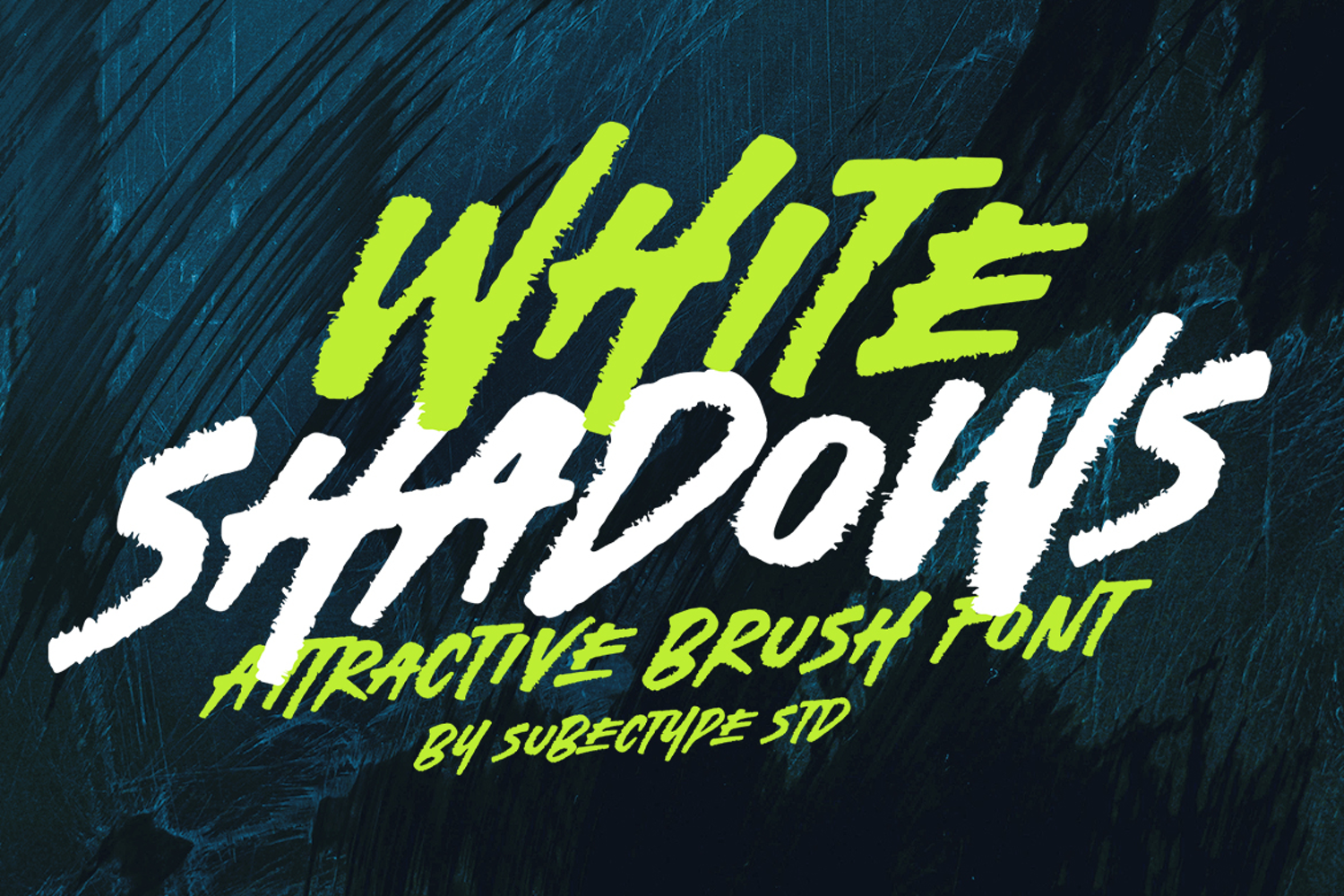
White Shadow - Sport Brush Font
Say hello to "White Shadows". This attractive brush font is crafted with bold, dynamic strokes that capture energy, movement, and strength, making it perfect for sport and adventure themes. Each stroke delivers a sense of motion and confidence, inspired by action, speed, and outdoor challenges. Its expressive and powerful character helps designs stand out instantly, making it ideal for sports, outdoor branding, event posters, team logos, and adventure-driven visuals that demand impact and excitement.